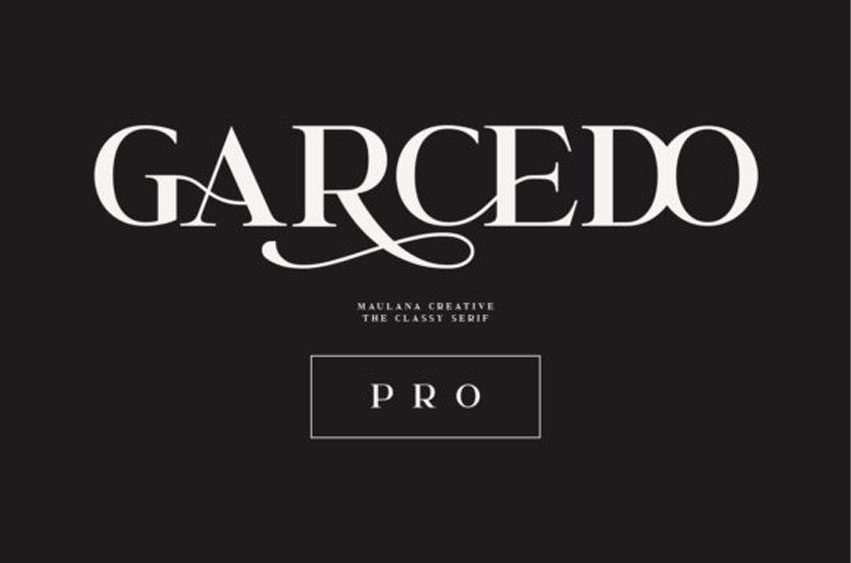
Garcedo Font
Garcedo Font is inspired by classic typography and brings its own unique style to any design project.
This serif font will elevate a wide range of design projects to the highest level, be it branding, headings, wedding designs, invitations, signatures, logos, labels, and much more!